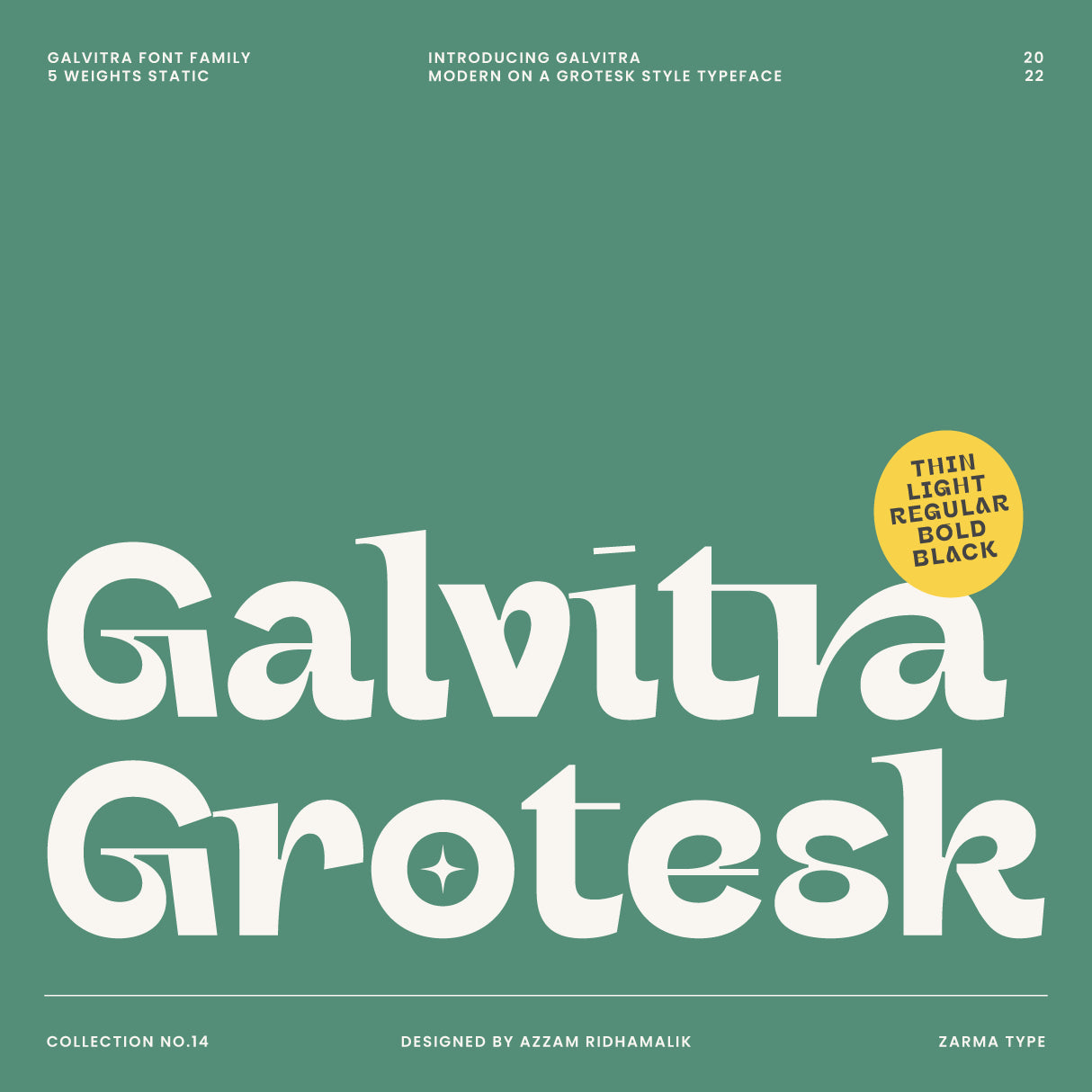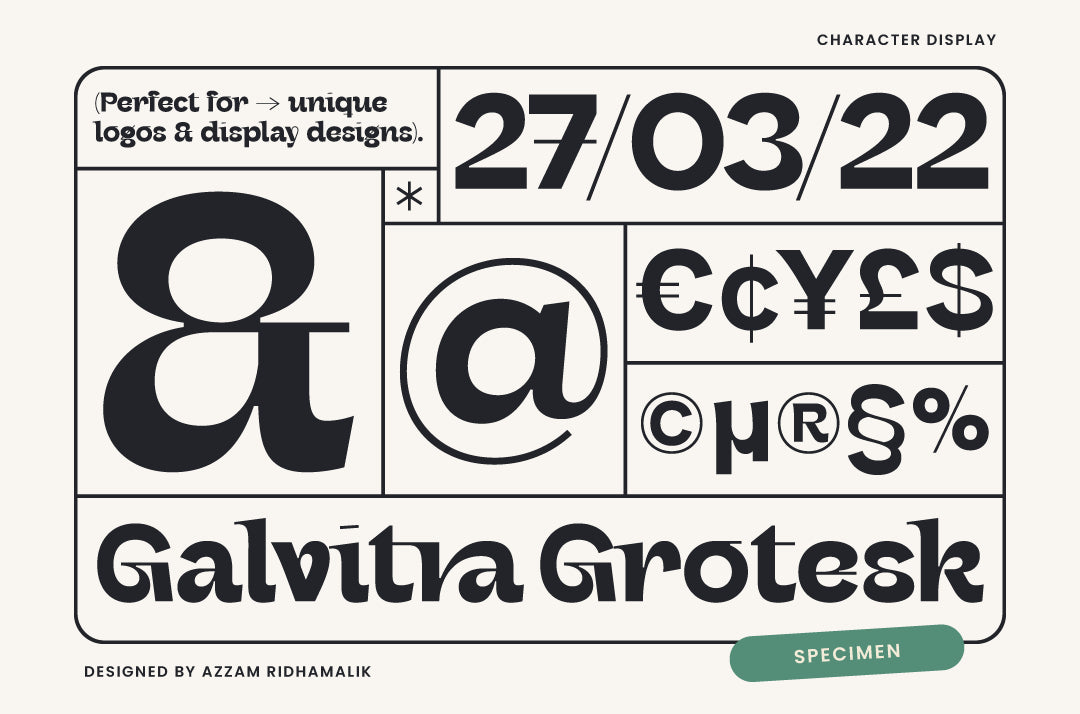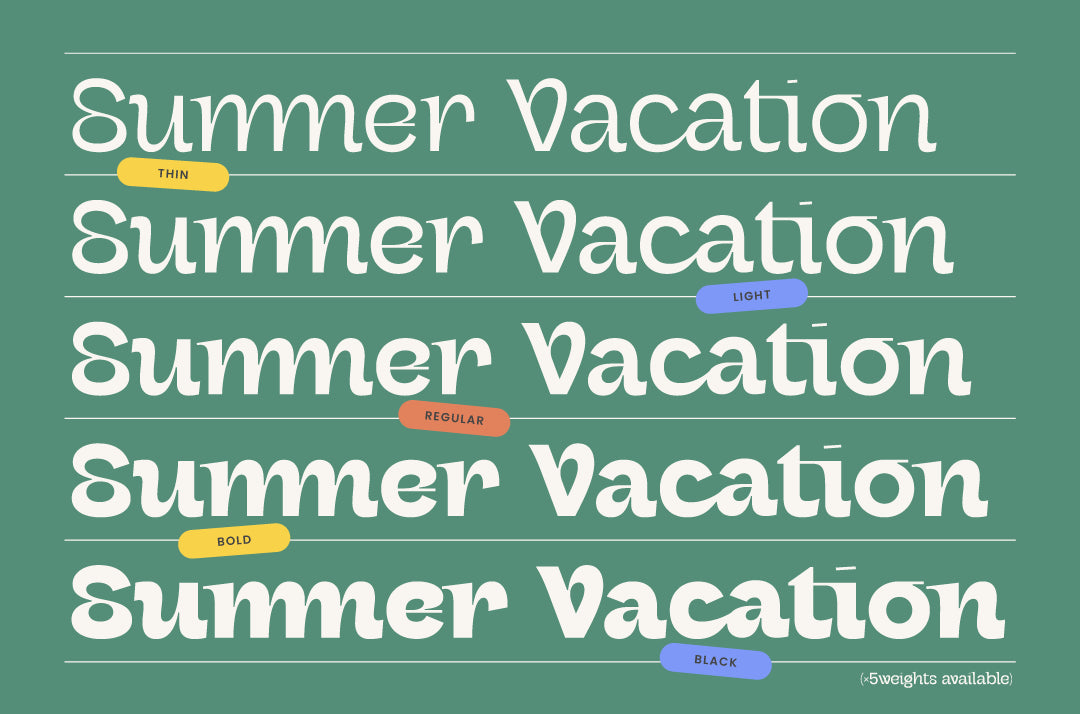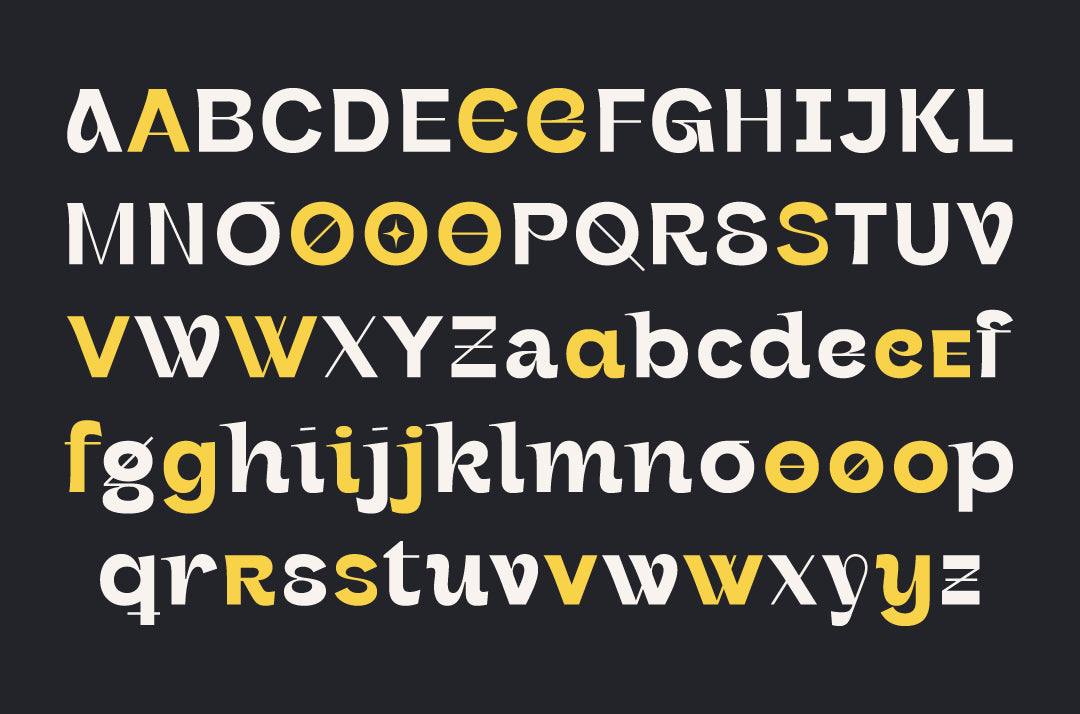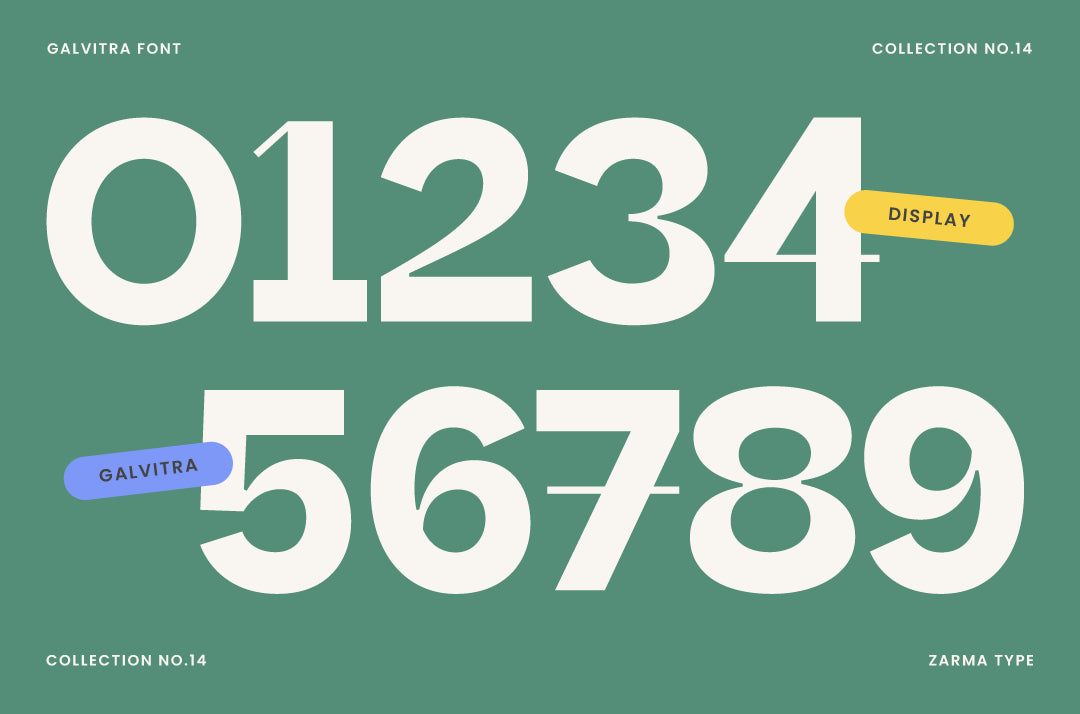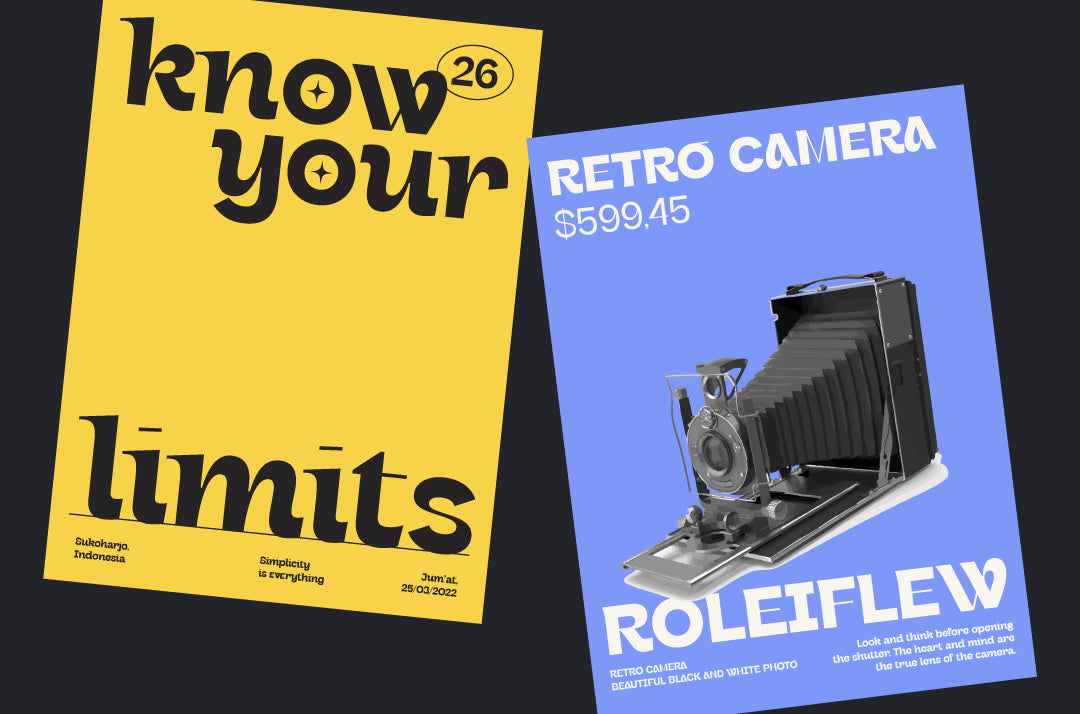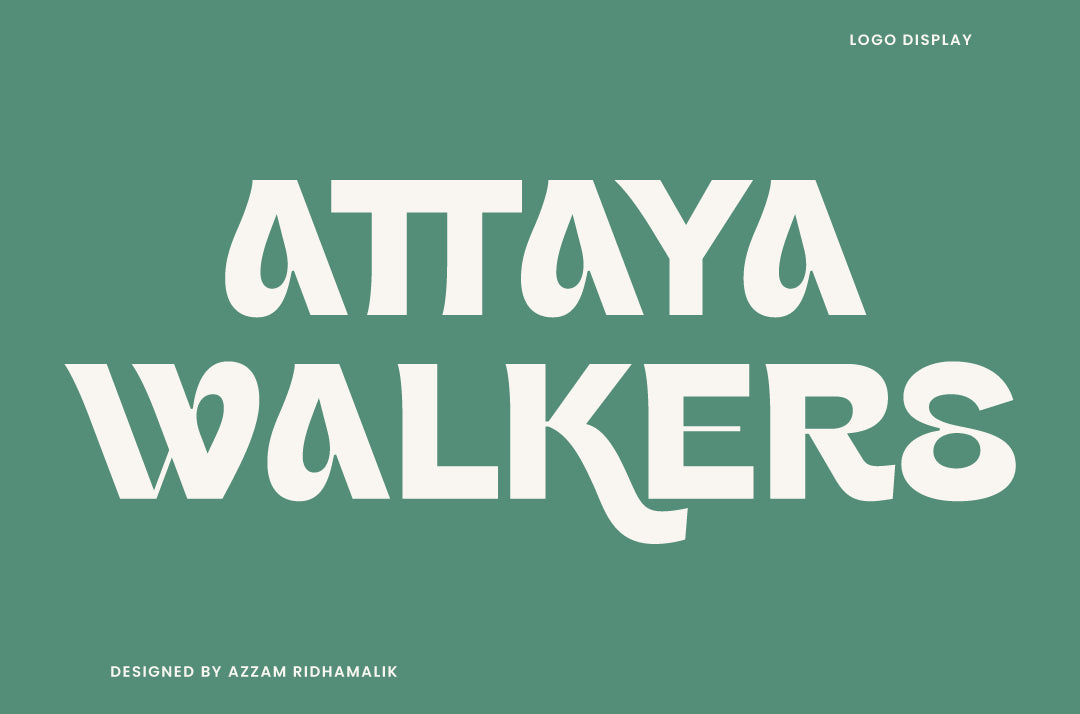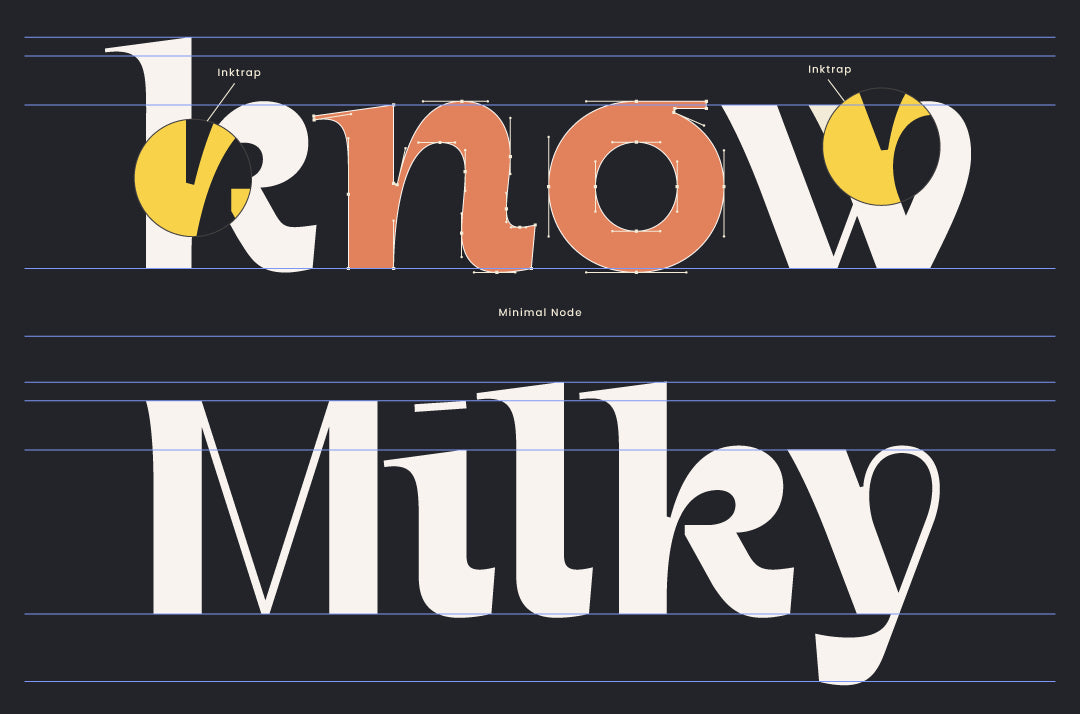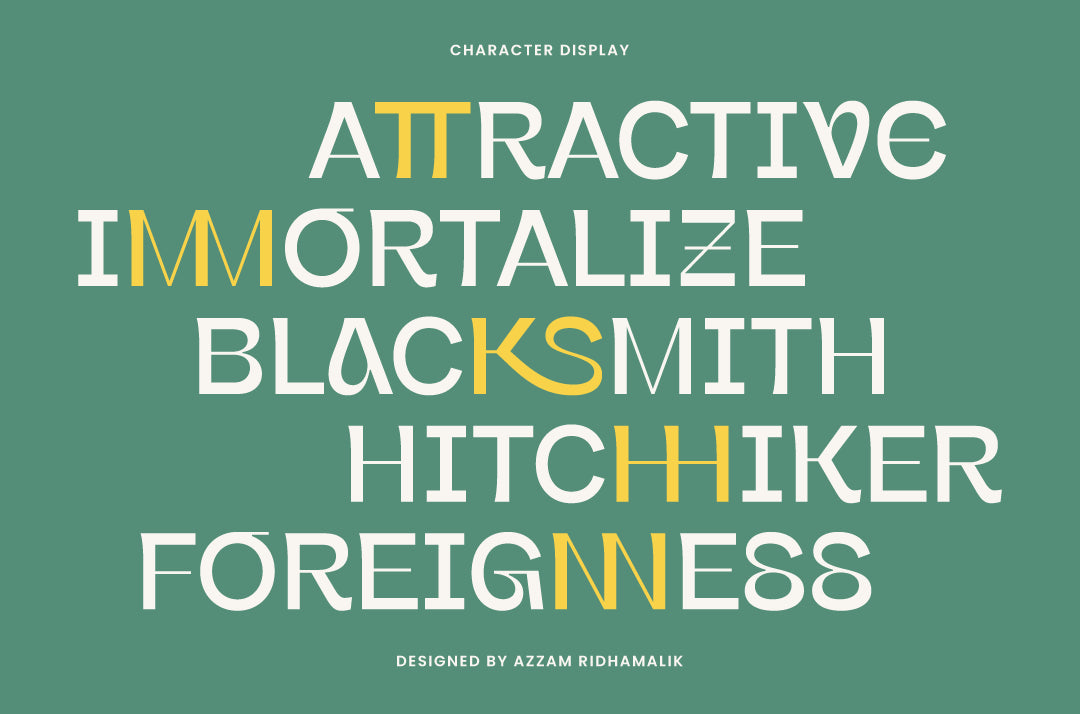
Galvitra Family Font
Galvitra is a bold Grotesk Font that reimagines the classic grotesk style with a fresh contemporary display aesthetic. Available in 5 versatile weights—Thin, Light, Regular, Bold, and Black—Galvitra blends clean geometric forms with subtle serif details on selected characters, creating a distinctive personality that feels both modern and timeless. Perfect for branding, logos, editorial layouts, posters, packaging, and eye-catching display typography, Galvitra delivers a confident visual presence that stands out across both print and digital media.
Designed for maximum flexibility, Galvitra includes uppercase and lowercase characters, numbers, punctuation, ligatures, OpenType features, PUA encoded characters, and an Extended Latin character set with multilingual support. Whether you're building a sophisticated brand identity or creating bold editorial compositions, Galvitra offers the perfect balance of strength, versatility, and refined grotesk character for today's creative projects.
Galvitra Family Font is a bold Grotesk typeface available in five weights—Thin, Light, Regular, Bold, and Black. It features clean geometric forms with subtle serif details, includes uppercase and lowercase characters, numbers, punctuation, ligatures, OpenType features, PUA encoded characters, and an Extended Latin character set for multilingual support.